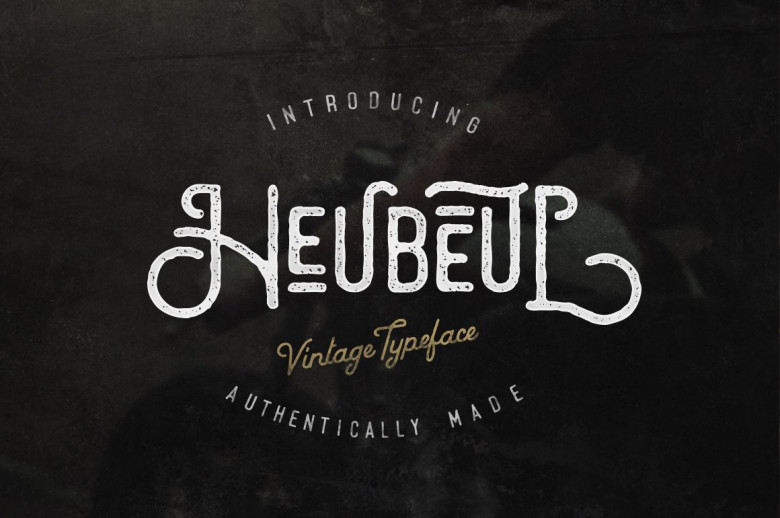
Heubeul Typeface
Heubeul Typeface Free Version 1.1
Heubeul is a highly detailed crafted font inspired from hand-drawn lettering style and vintage style. Come in two versions, perfect round smooth edges, and rough vintage version.
In this update many features updated, and here is the list of new features:
Many alternatives uppercase and lowercase character added
Start and Finishing Character
More Variation Unique Lowercase Character
Hebeul Rough Family
Hebeul Vintage Italic
Update International Language